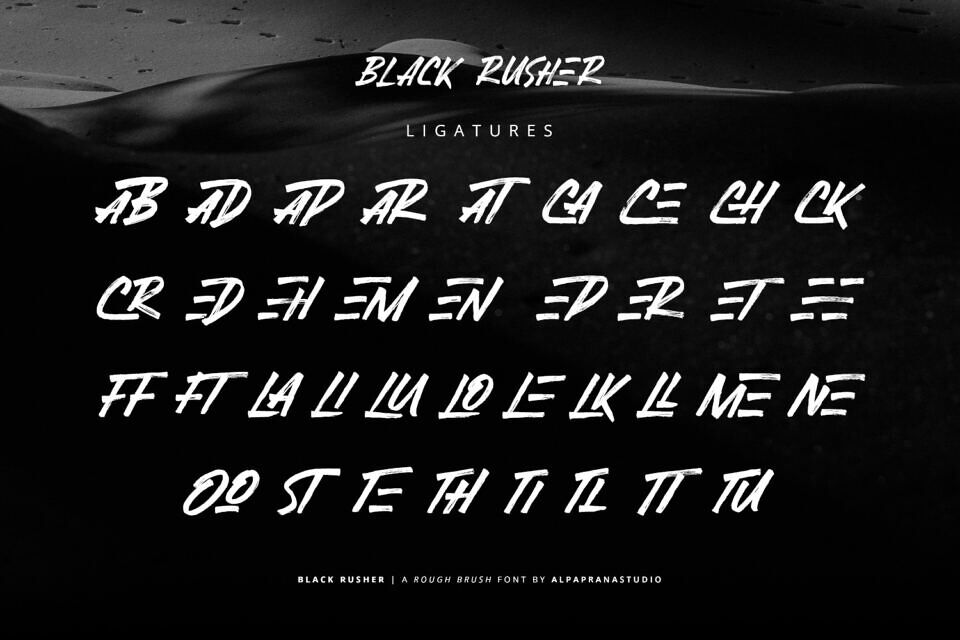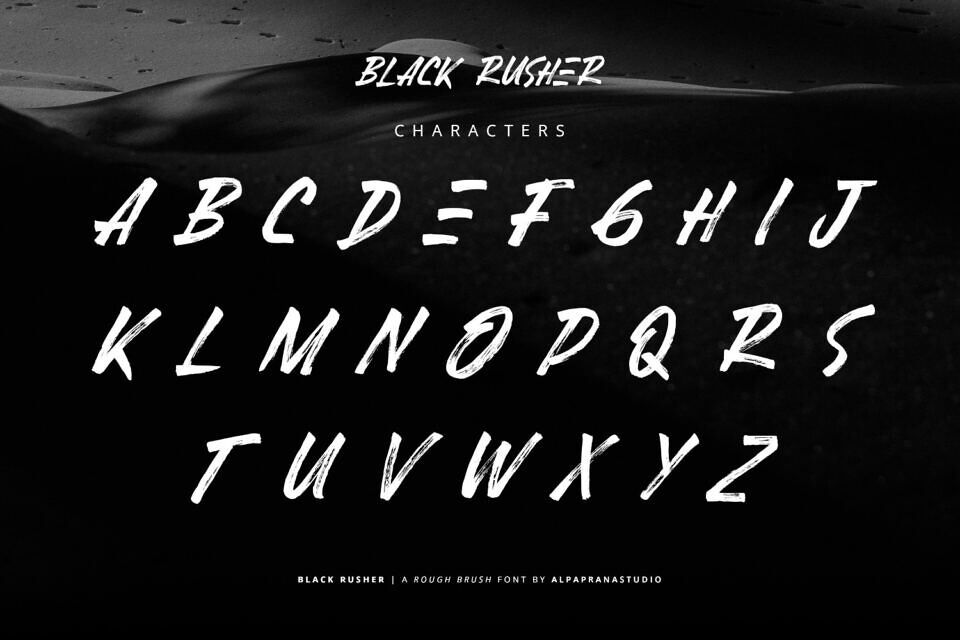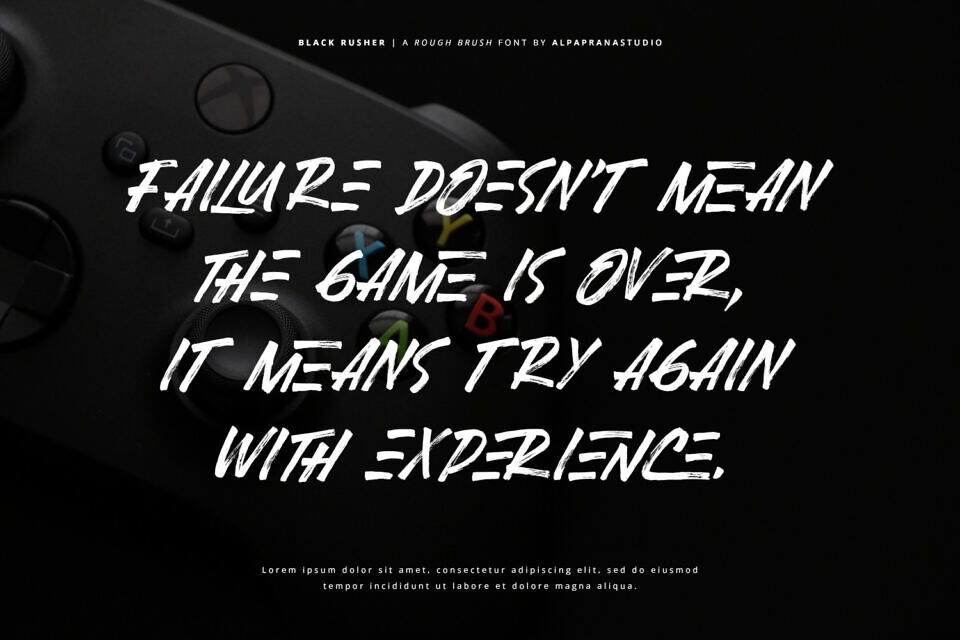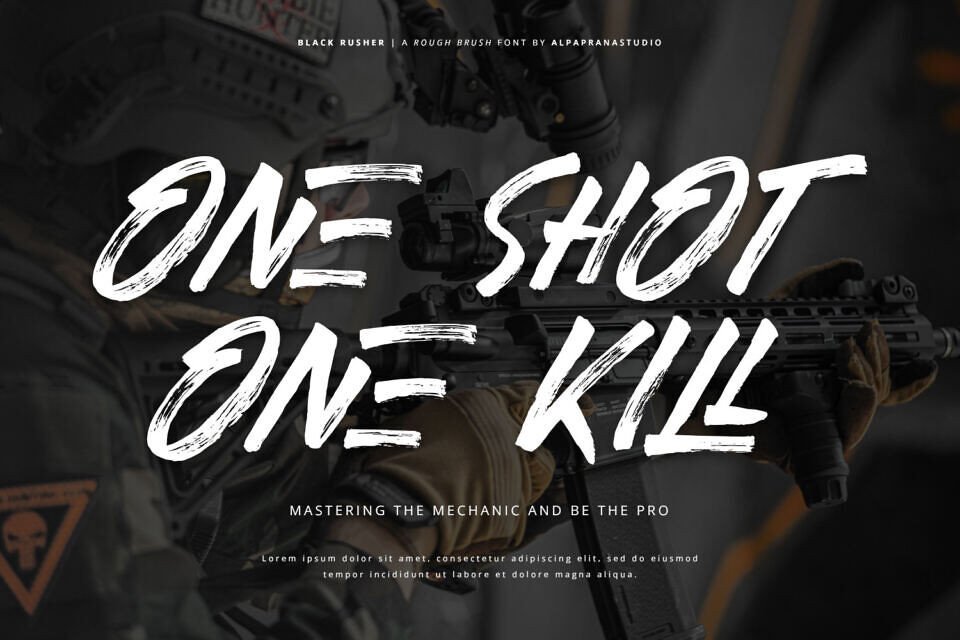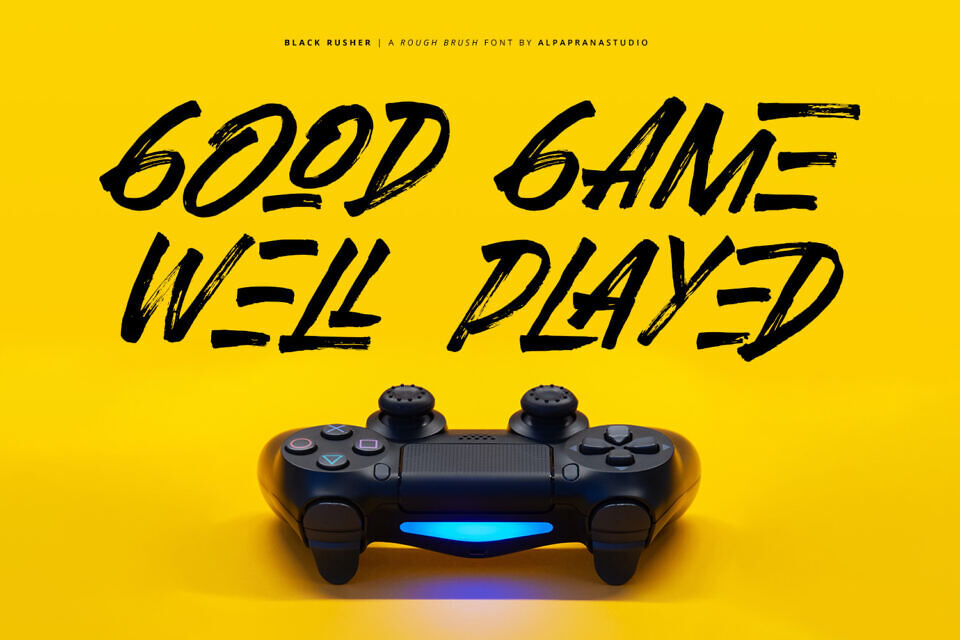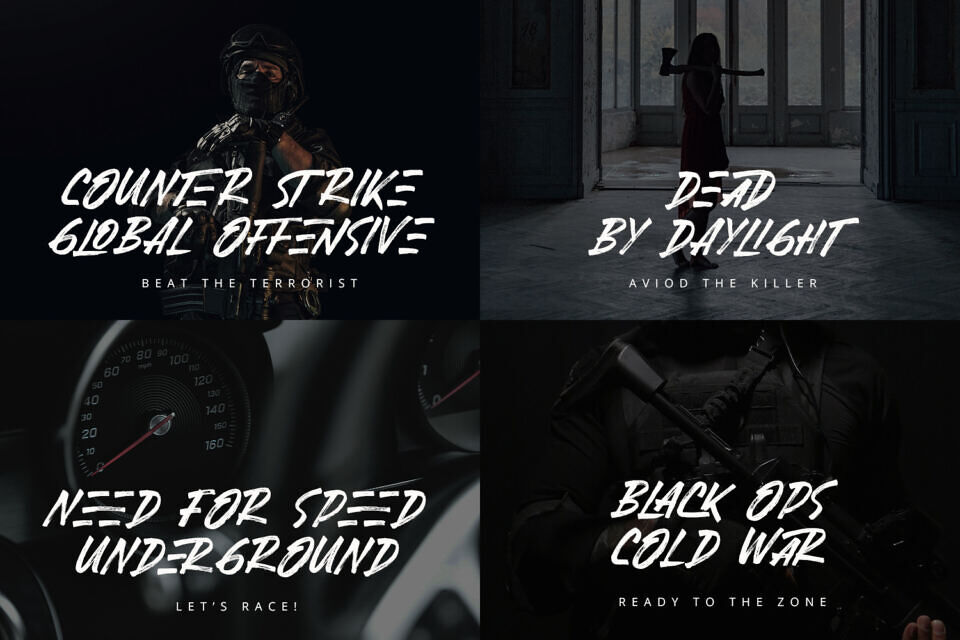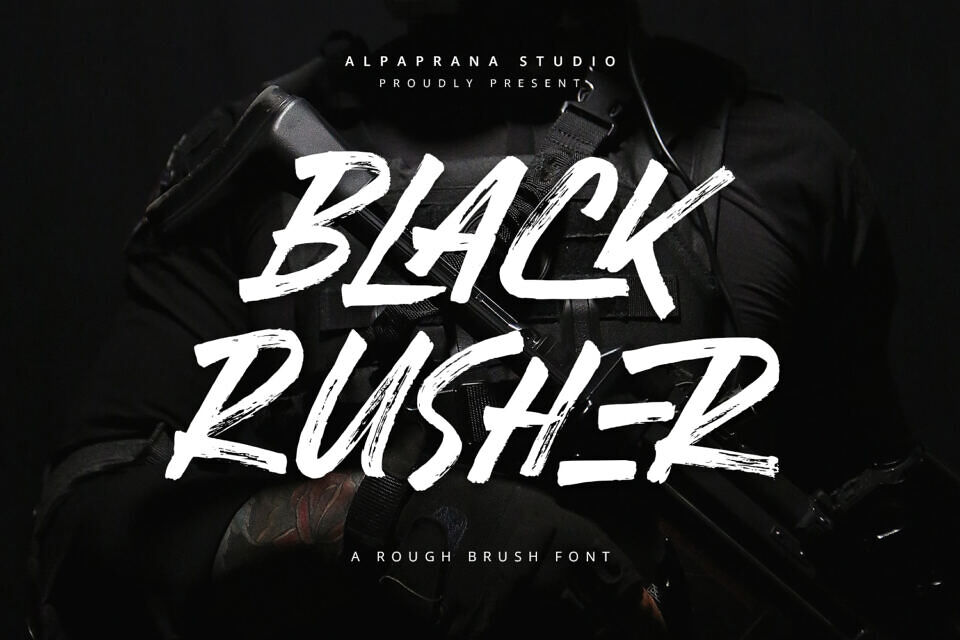
Black Rusher is a rough, rustic brush font bursting with character and charm. Its textured strokes and uneven lines capture the essence of hand-drawn lettering, while its bold and confident presence commands attention.
Perfect for designs that require an organic and earthy feel, with a touch of rebelliousness. It is also PUA encoded which means you can access all of the glyphs and swashes with ease!